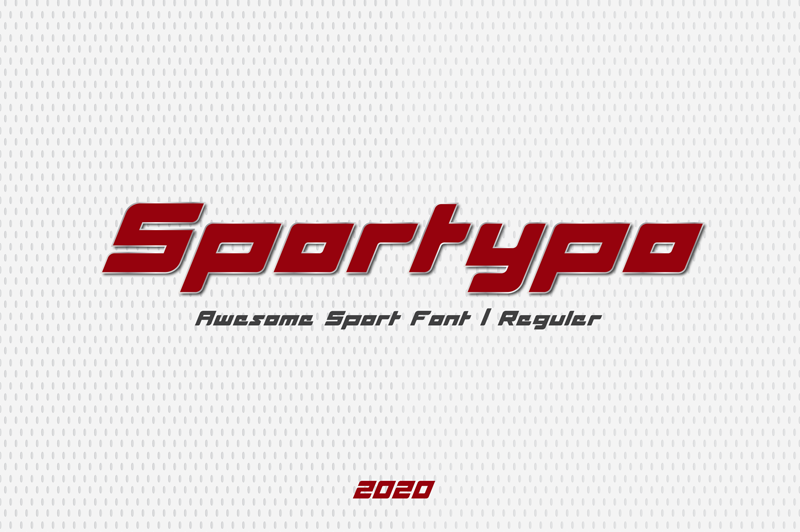
Preview and download Sportypo Font. Created by Agus Alfian in Techno Sci-fi styles with Demo license.
Sportypo is a dynamic and aggressive font that works well for sports, gaming and much more! MORE INFORMATION This DEMO font is for PERSONAL USE ONLY! ENGLISH: By installing or using this font, you are agreeing to the Product Usage Agreement: 1. This font is ONLY for PERSONAL USE. NO COMMERCIAL USE ALLOWED! 2. You are requiring a license for PROMOTIONAL or COMMERCIAL use. 3. CONTACT ME before any Promotional or Commercial Use! buy font here: https://www.creativefabrica.com/product/sportypo/ Here is my paypal link: https://paypal.me/ghielz EMAIL SUPPORT: gustalalista@gmail.com ------------------- INDONESIA: Dengan meng-install font ini, anda dianggap mengerti dan menyetujui semua syarat dan ketentuan penggunaan font dibawah ini: 1. Font ini hanya dapat digunakan untuk keperluan "Personal Use", atau untuk keperluan yang sifatnya tidak "komersil", alias tidak menghasilkan profit atau keuntungan dari hasil memanfaatkan/menggunakan font saya. Baik itu untuk individu, Agensi Desain Grafis, Percetakan, atau Perusahaan/Korporasi. 2. DILARANG KERAS menggunakan atau memanfaatkan font ini untuk kepeluan Komersial, baik itu untuk Iklan, Promosi, TV, Film, Video, Motion Graphics, Youtube, atau untuk Kemasan Produk (baik Fisik ataupun Digital) atau Media apapun dengan tujuan menghasilkan profit/keuntungan. More... |